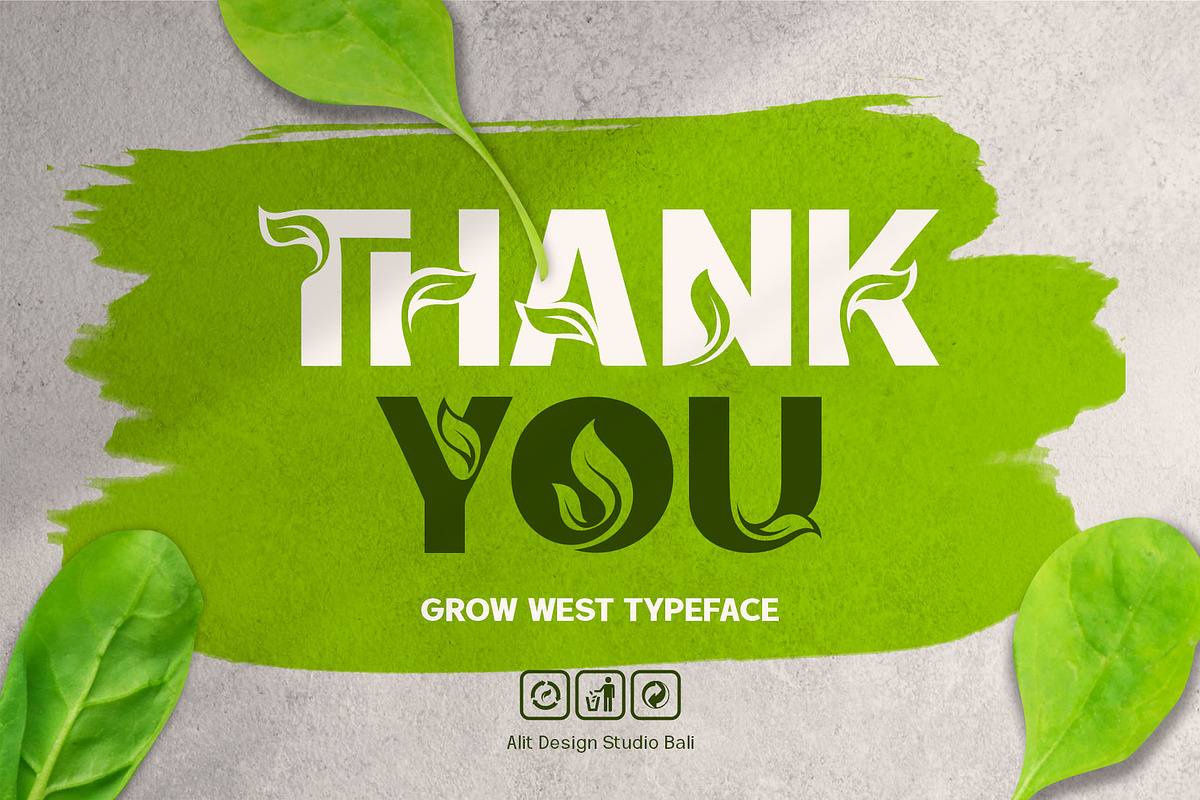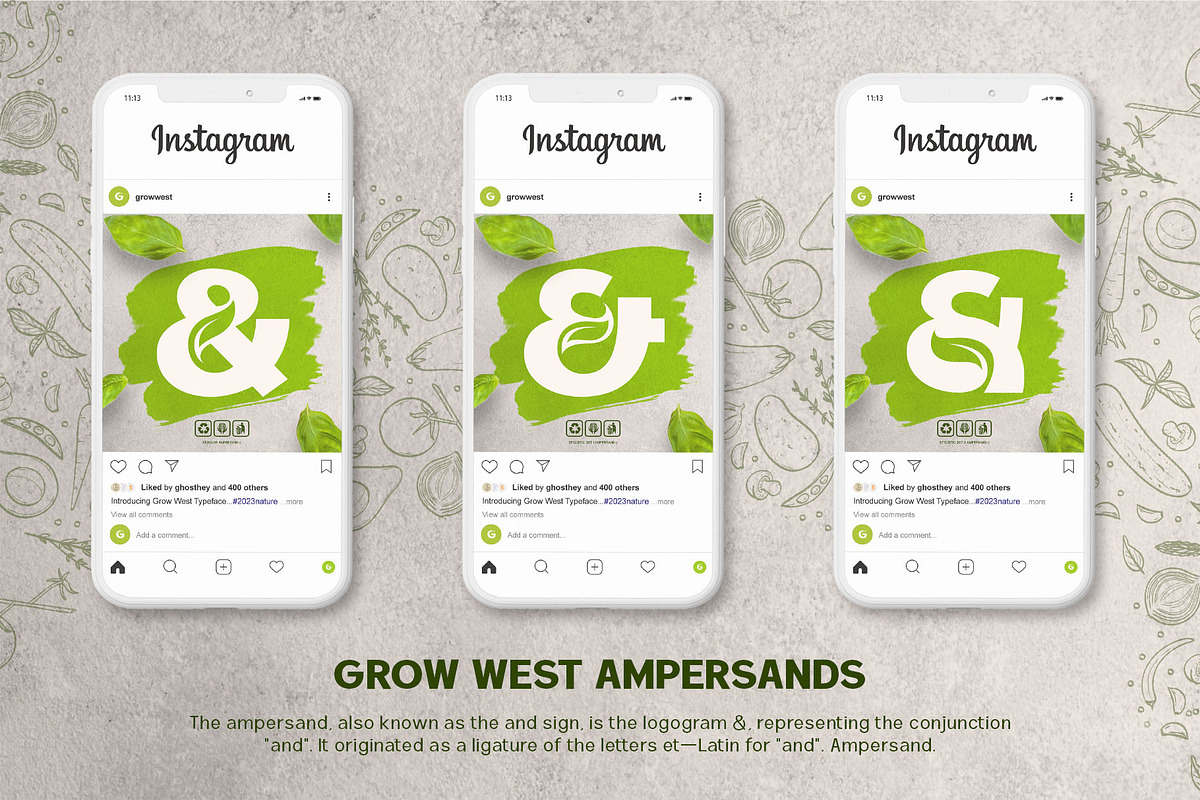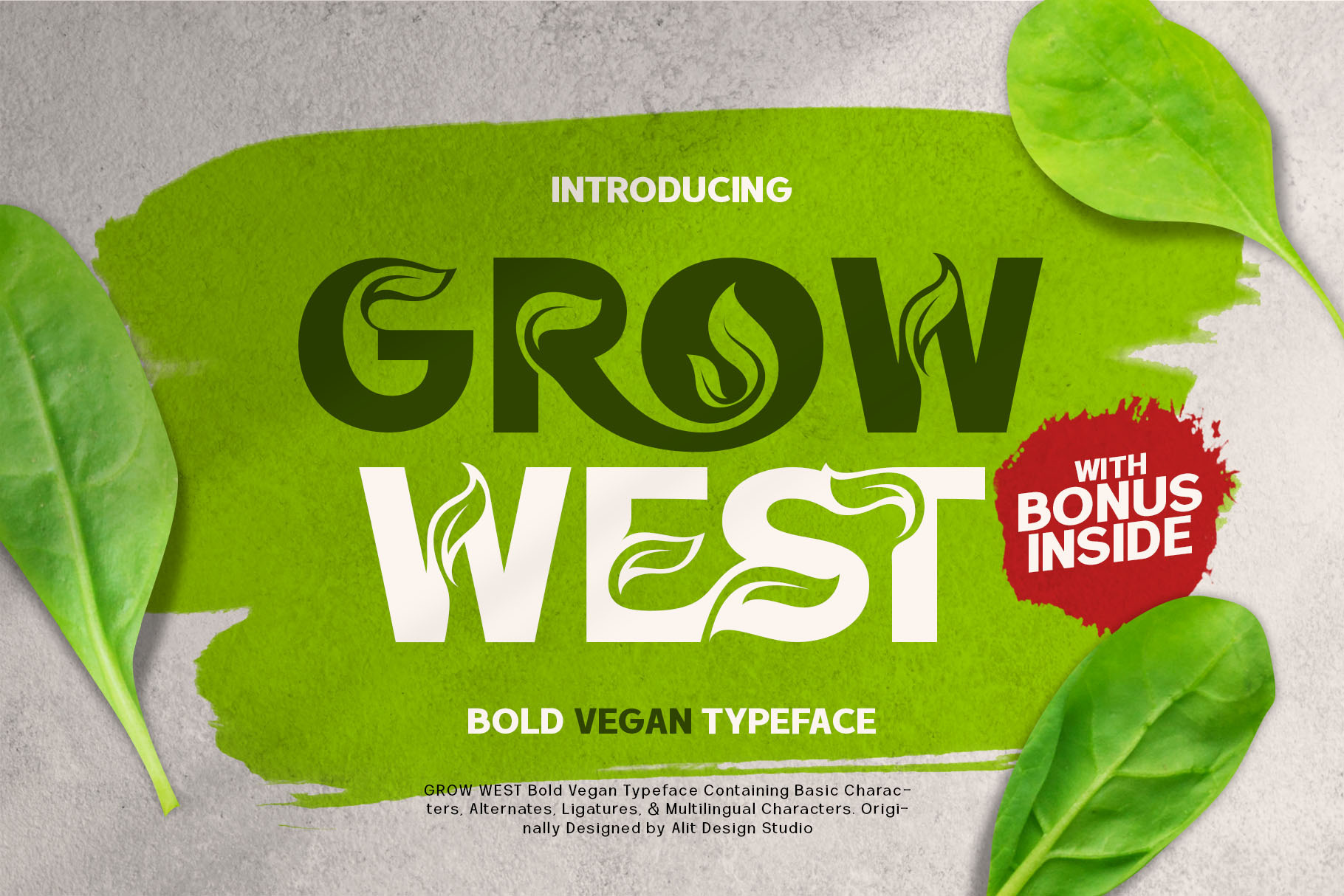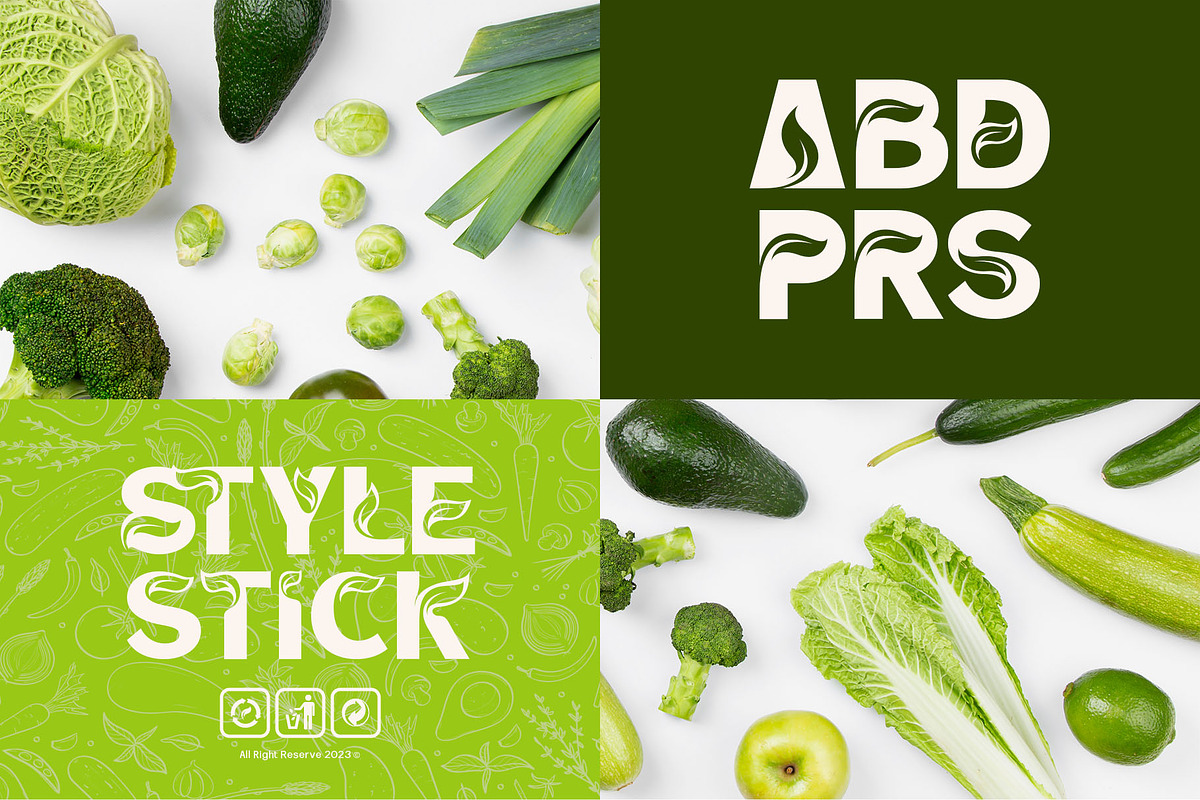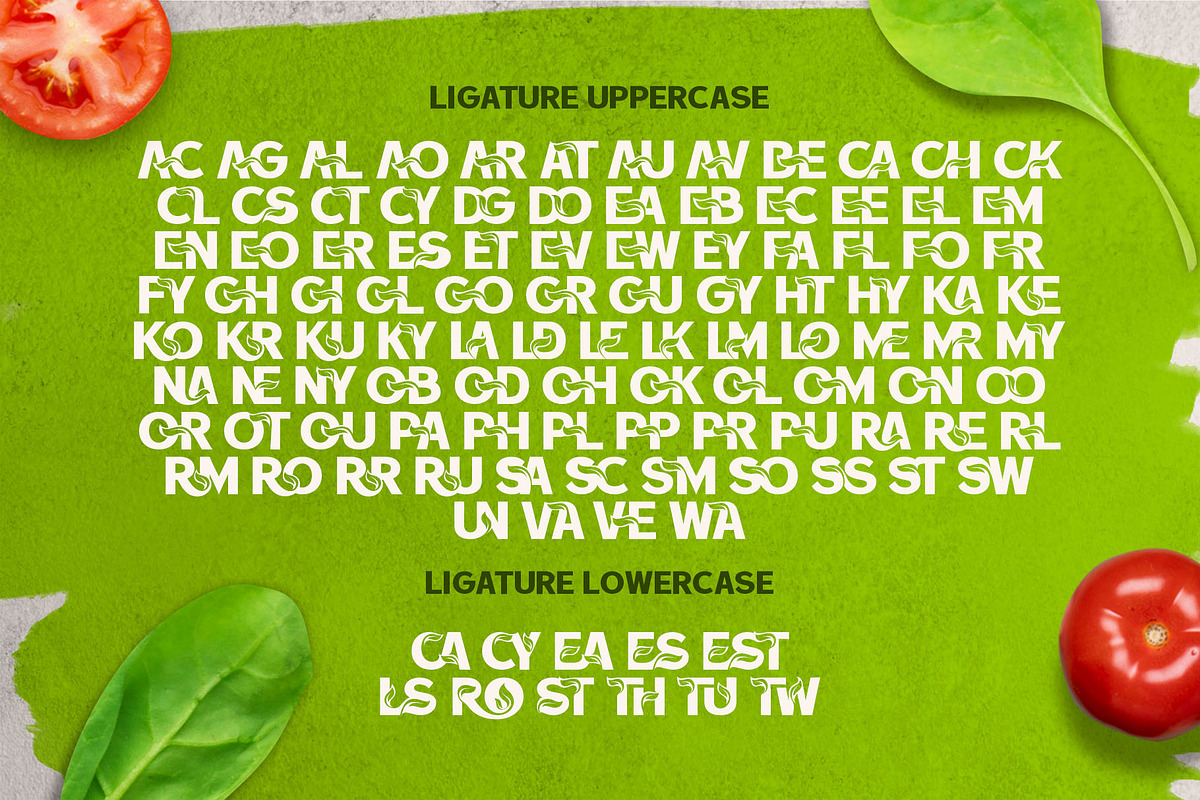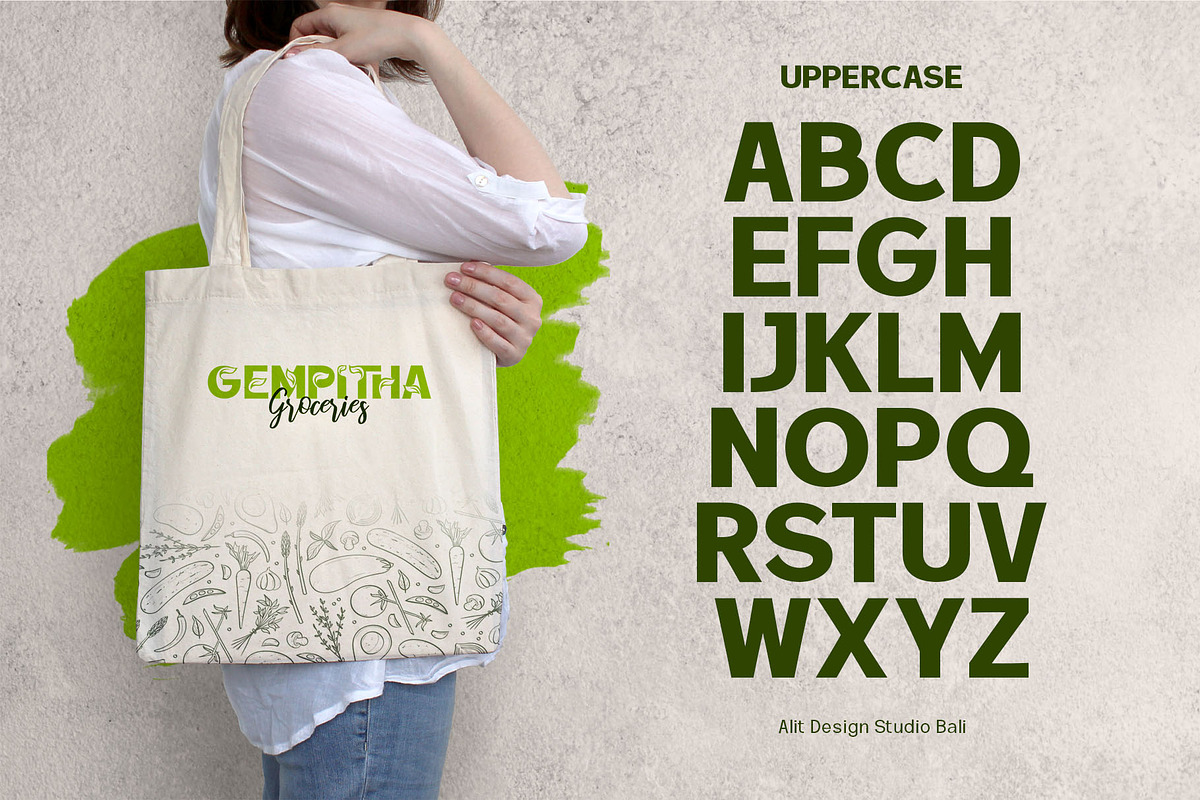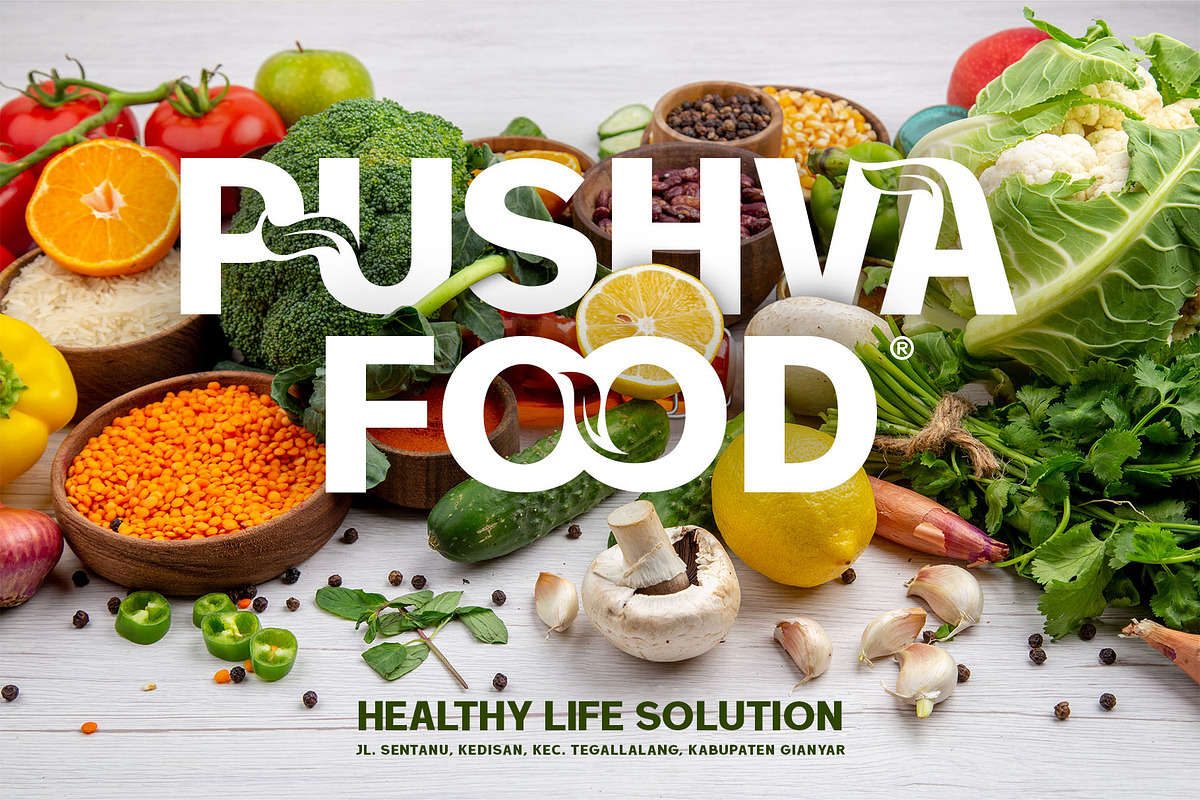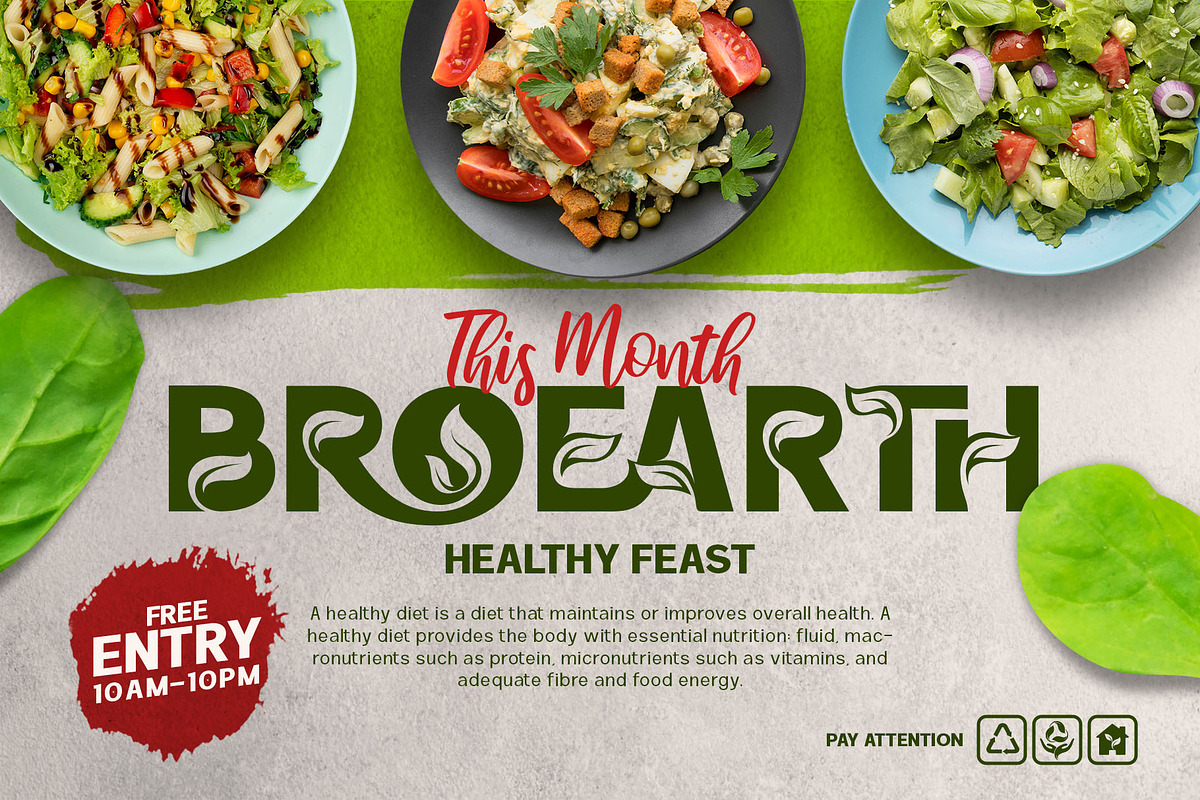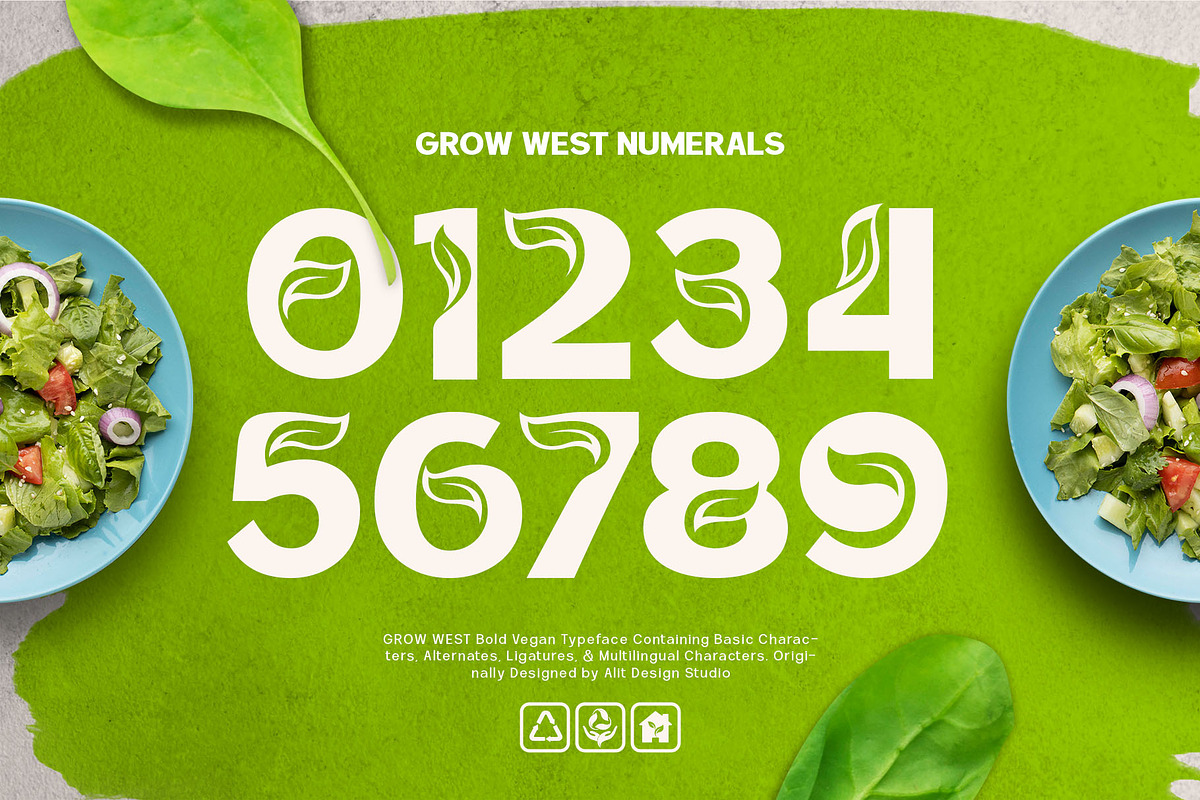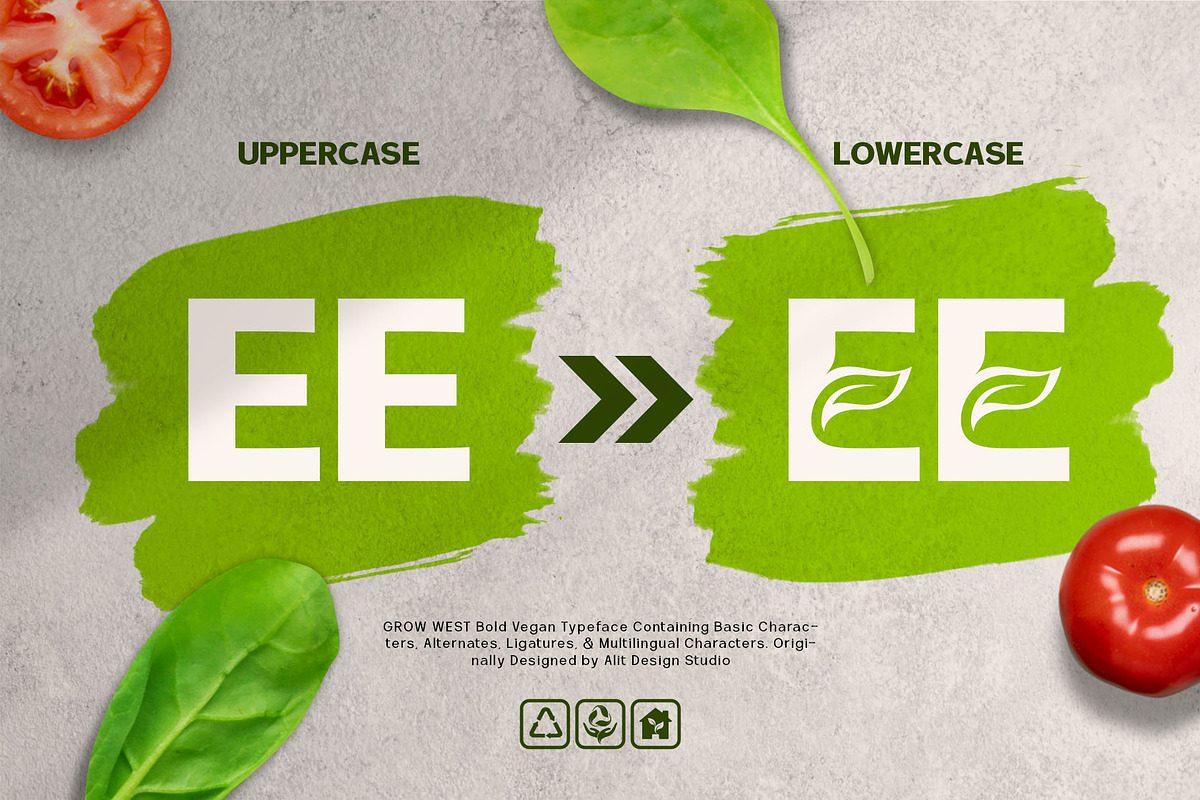
Grow West Nature Typeface
Introducing "Grow West" – A Font for a Greener Tomorrow
Embrace the essence of nature and environmental consciousness with our "Grow West" font, a typographic masterpiece designed to bring your eco-friendly message to life. This font is more than just a typeface; it's a visual representation of sustainability, growth, and the beauty of our natural world.
Go Green Theme: "Grow West" encapsulates the essence of sustainability with its go green theme. The font style exudes an eco-friendly vibe that is perfect for projects, campaigns, and messages that focus on the preservation of our planet.
Leaf Illustration Accents: This font comes adorned with delicately crafted leaf illustration accents, seamlessly integrated into the letters. These subtle touches add a touch of organic beauty to your text, making it ideal for environmental and nature-inspired designs.
Sans Serif Font Type: "Grow West" features a sleek sans-serif font style, offering clarity and modernity while maintaining a friendly and approachable feel. It's versatile and well-suited for a wide range of design applications.
Suitable for Logos: Whether you're creating a logo for an eco-conscious brand, a sustainable product, or a green initiative, "Grow West" is the perfect choice. It adds an element of natural sophistication to your branding.
Ideal for Environmental Campaigns: "Grow West" is the font you need to make your environmental campaigns stand out. Its design aligns perfectly with messages promoting sustainability, conservation, and eco-awareness.
Contains Alternatives: "Grow West" provides you with a variety of alternative characters and glyphs, allowing you to customize your text and create unique, eye-catching designs.
Ligatures: The font includes ligatures that enhance the aesthetics of your text by connecting specific letter combinations smoothly. This feature adds a touch of elegance to your typography.
Multilingual Support: "Grow West" is designed to speak to a global audience. It offers multilingual support, ensuring that your message is understood and appreciated by people from different linguistic backgrounds.
Bring your environmental message to life with "Grow West" – a font that not only communicates your commitment to a sustainable future but also does so with style and elegance. It's time to make a positive impact, one letter at a time. Choose "Grow West" and let your words flourish like the greenest leaves in the forest.